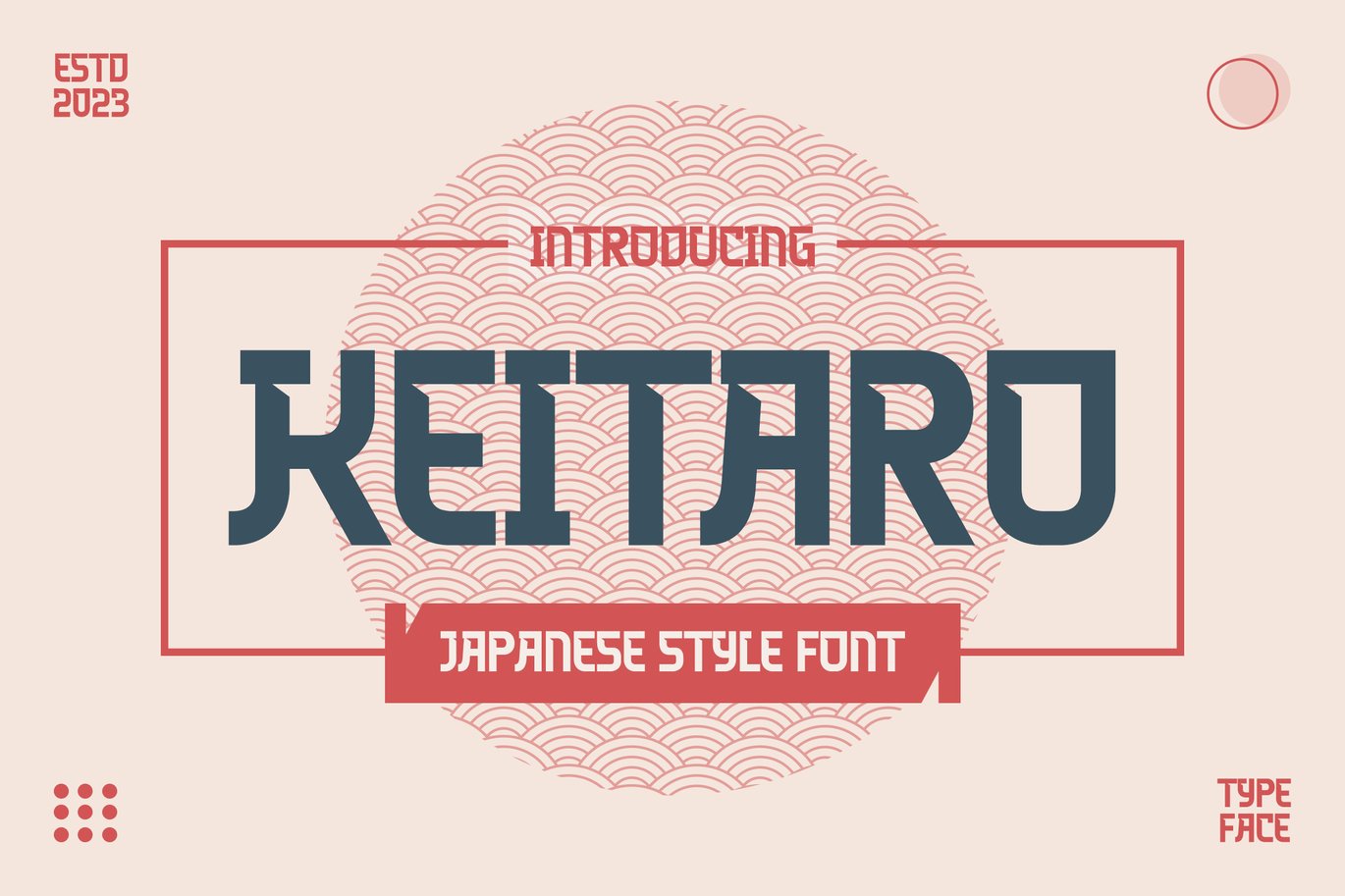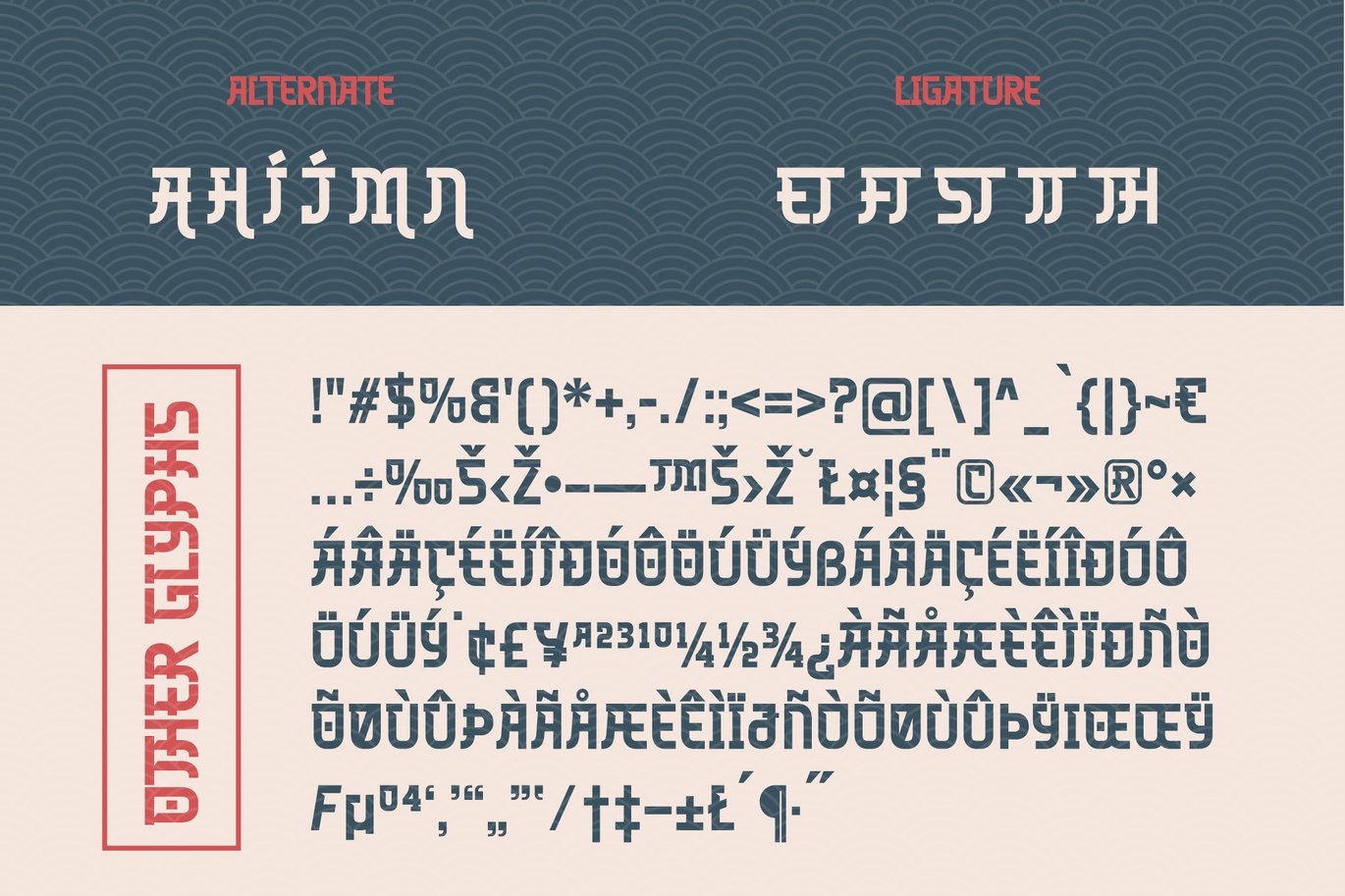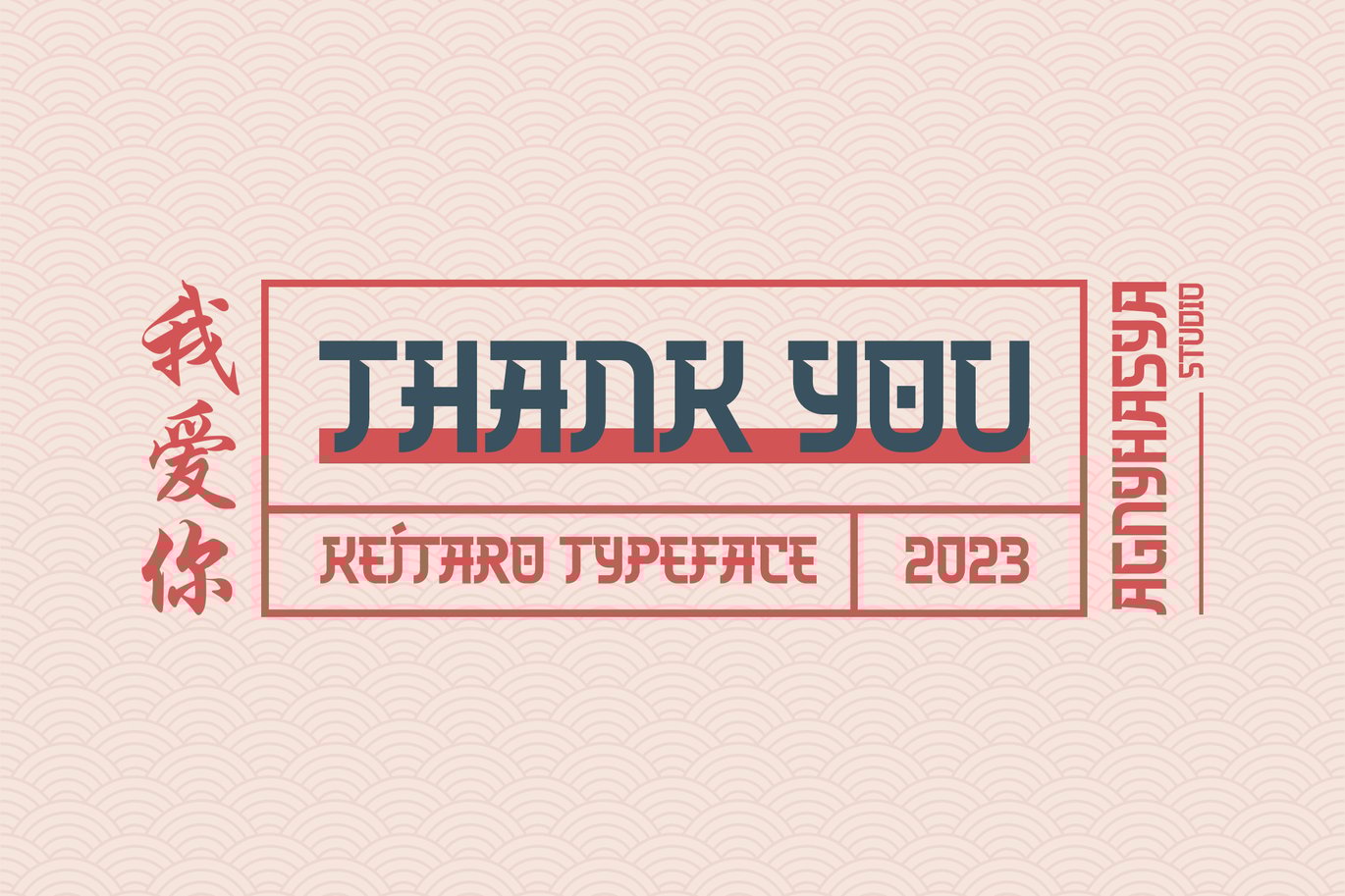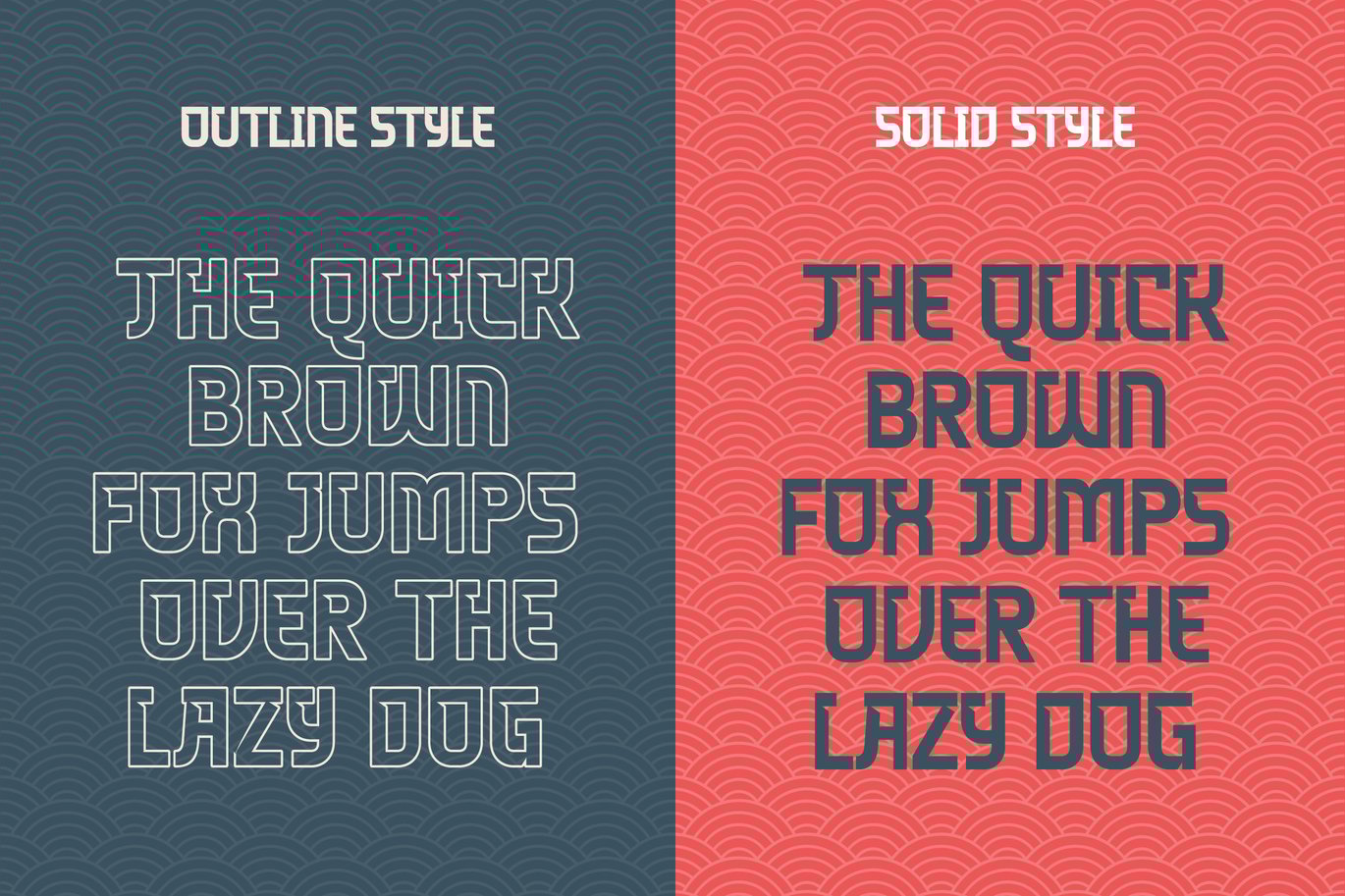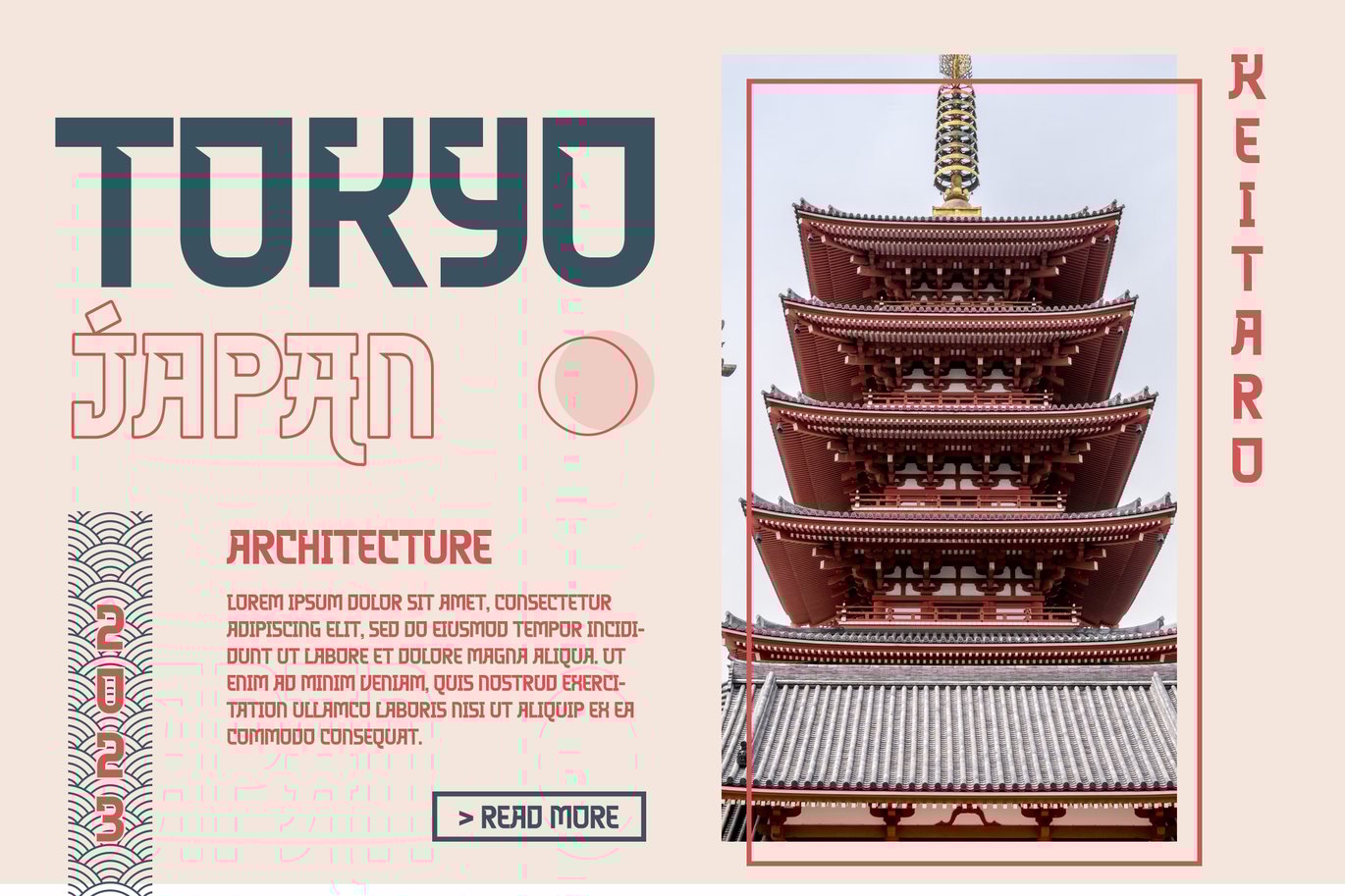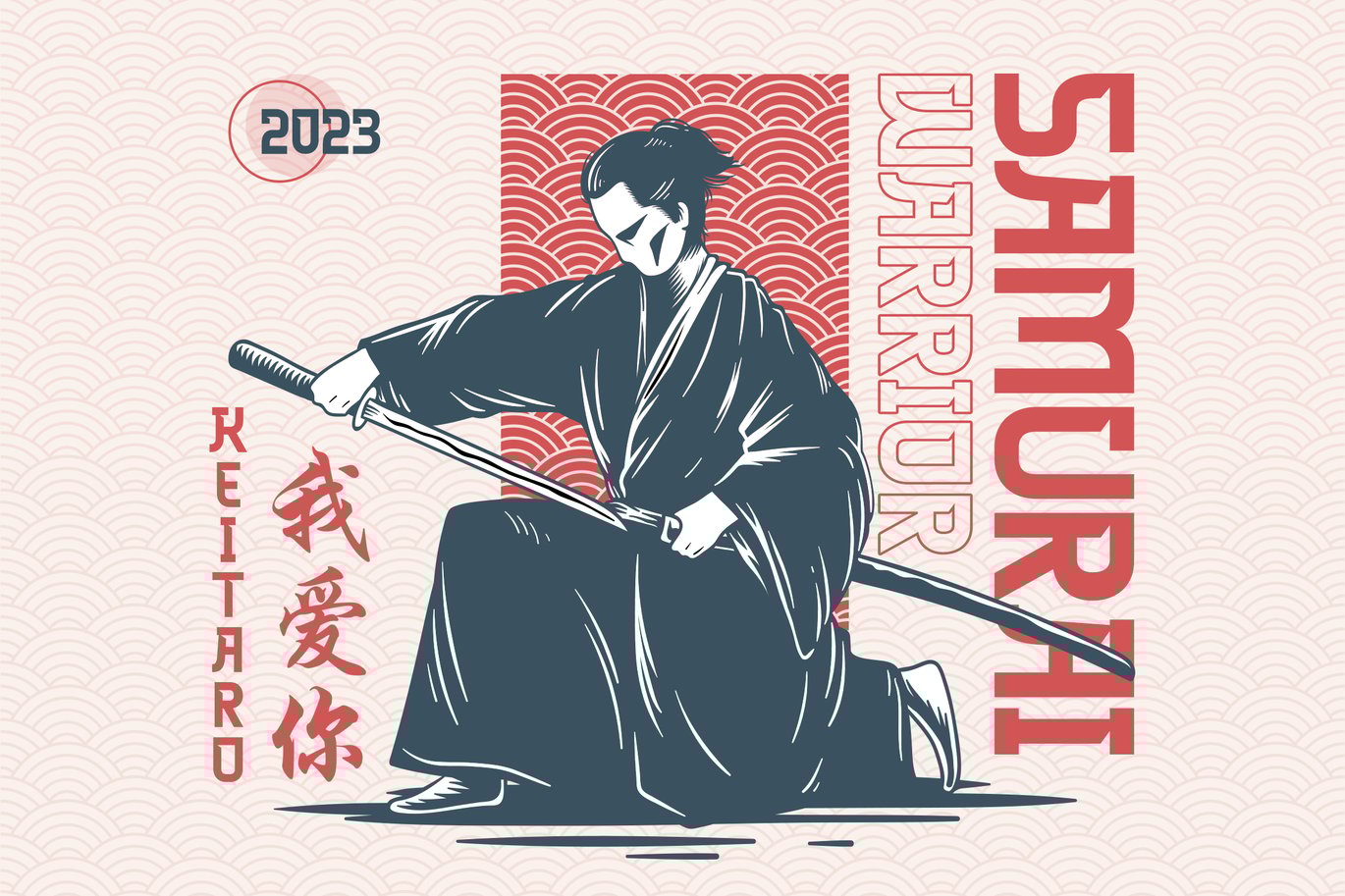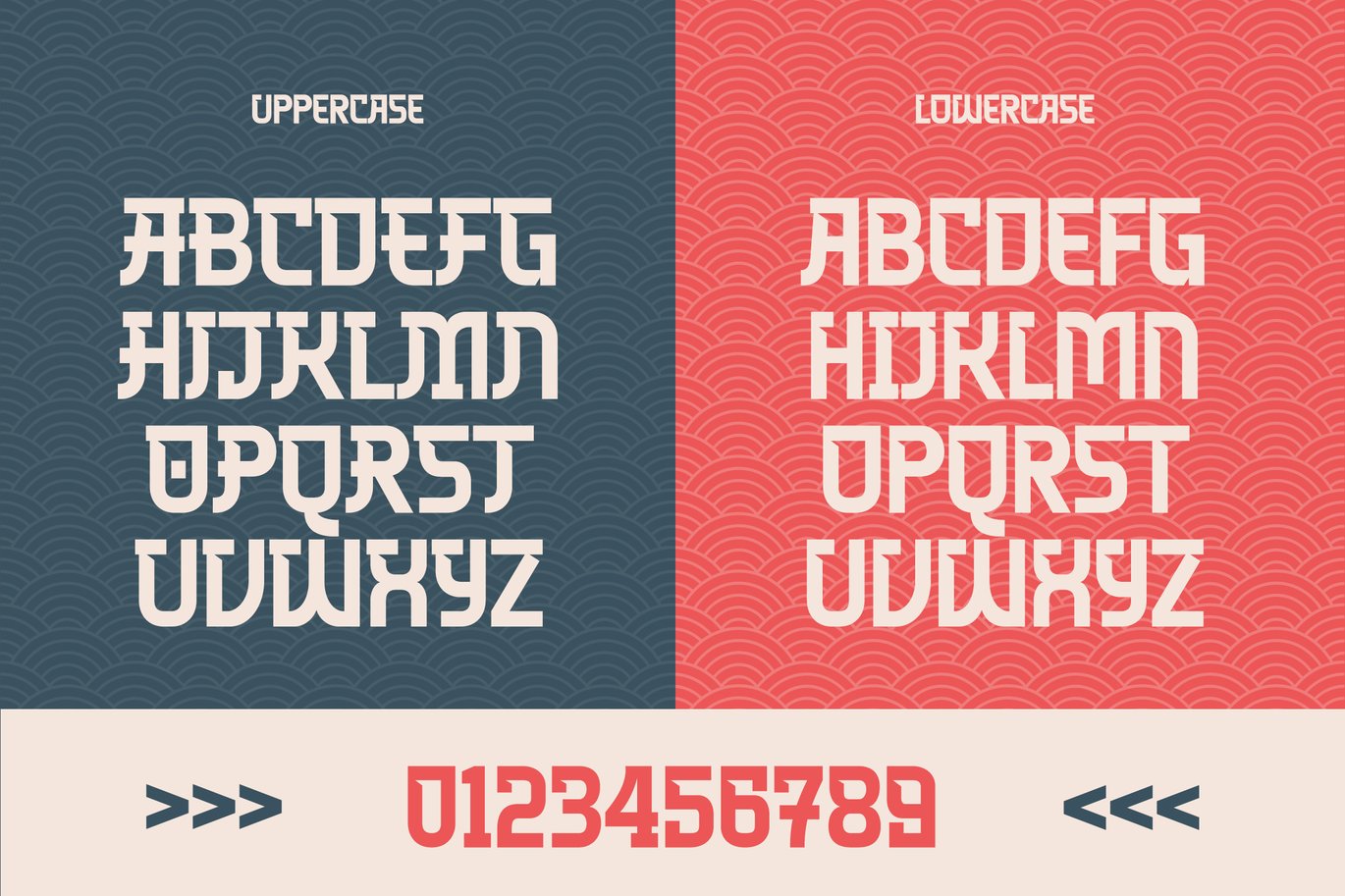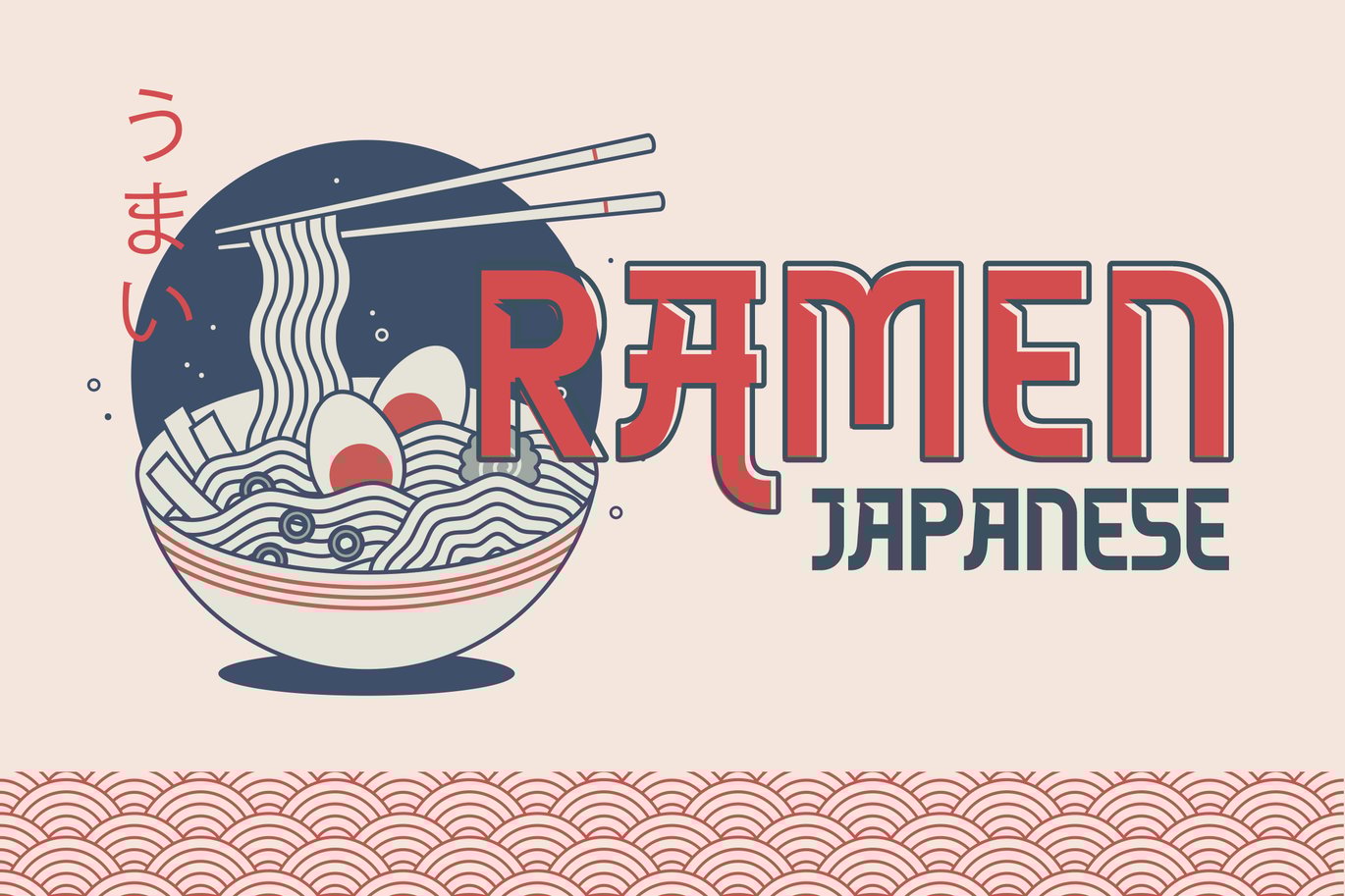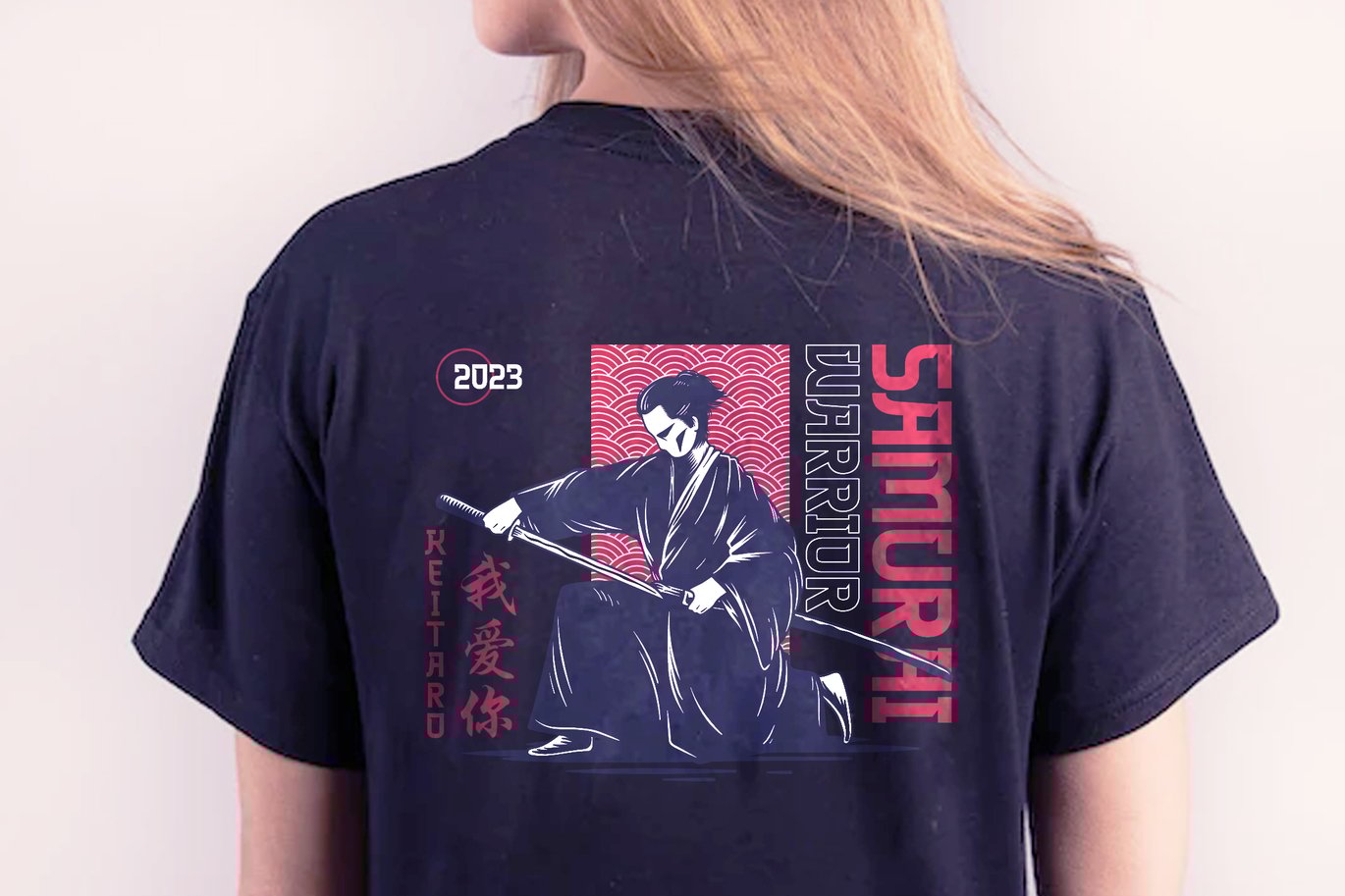
Keitaro – Japanese Font Style
Introducing Keitaro – Japanese Font Style
Perfect for your design projects like logos, branding, advertising, product designs, stationery, magazine designs, book/cover title designs, photography, art quotes, special events, labels, product packaging, and more.